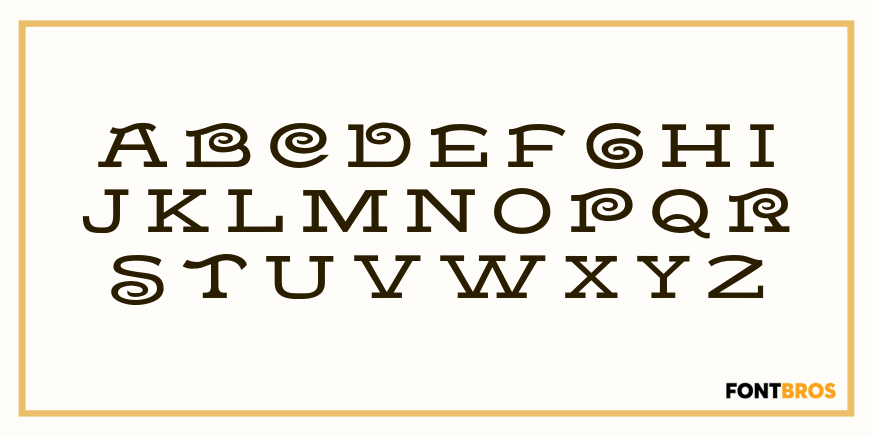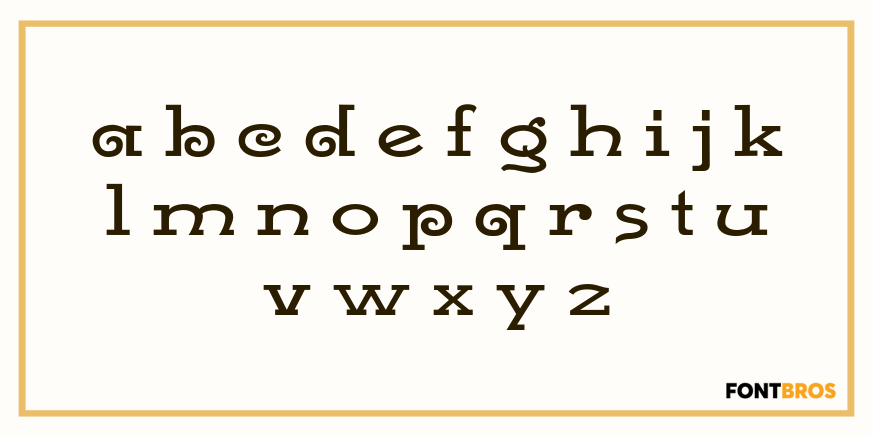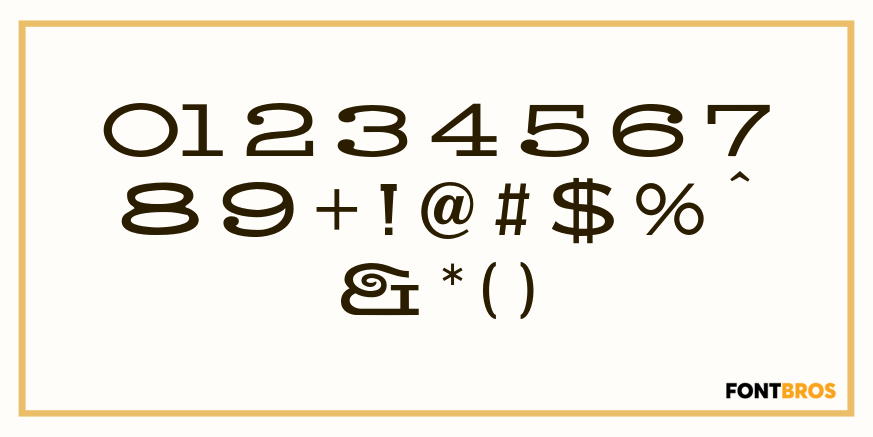
Bandstand
Font Family by Solotype
Our notes say this was originated at the Barnhart Bros. & Spindler foundry in Chicago, and named Cable.
Perhaps so, but we didn't find it in any of our BB&S catalogs.
We made a few changes to improve the color.